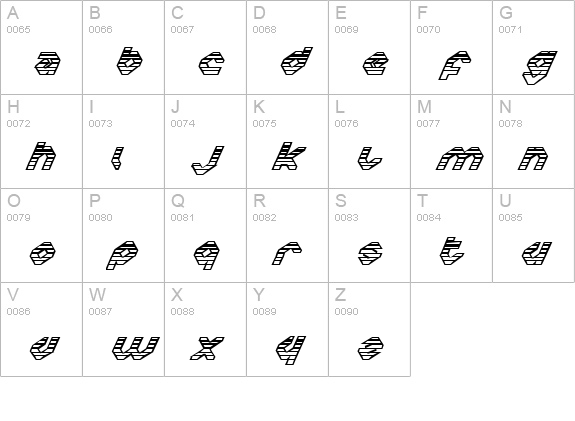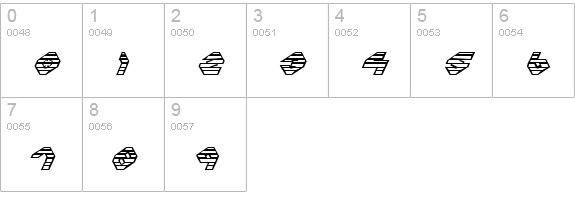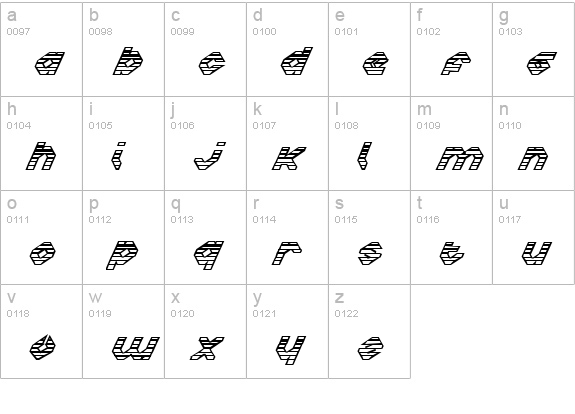
Charlie's Angles IoGradient font is a stunning display font that exudes elegance and sophistication. With its unique gradient design, this font is perfect for adding a touch of modernity to any project. The sleek lines and sharp angles of this font give it a dynamic and energetic feel, making it ideal for use in branding, advertising, and other creative projects. What sets Charlie's Angles IoGradient font apart is that it is completely free to download at FontsMarket.com. This means that you can easily access and use this stylish font in your designs without any cost involved. Whether you're creating a poster, logo, or website, Charlie's Angles IoGradient font will help you make a bold statement and stand out from the crowd. Don't miss out on the opportunity to elevate your designs with the striking Charlie's Angles IoGradient font. Download it for free today and unleash your creativity!